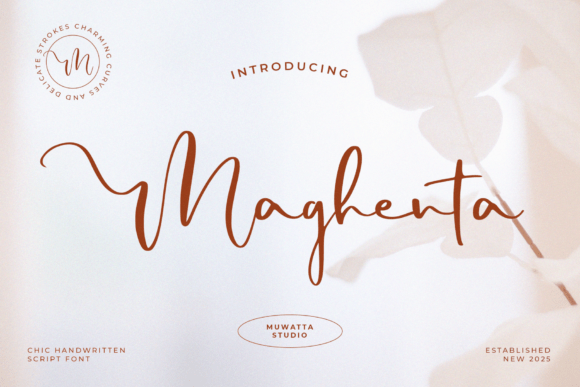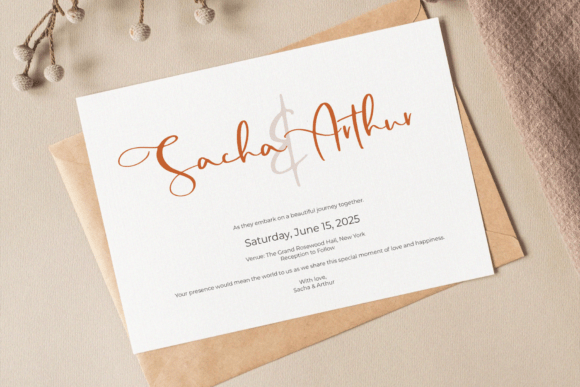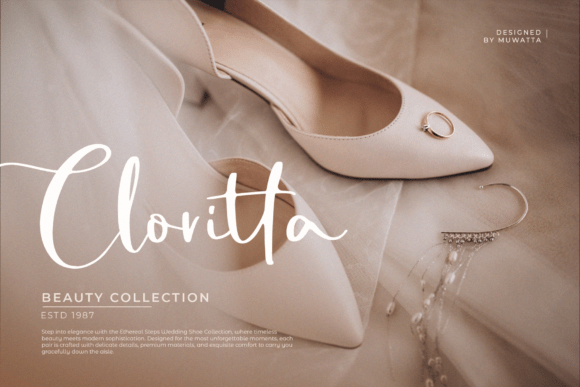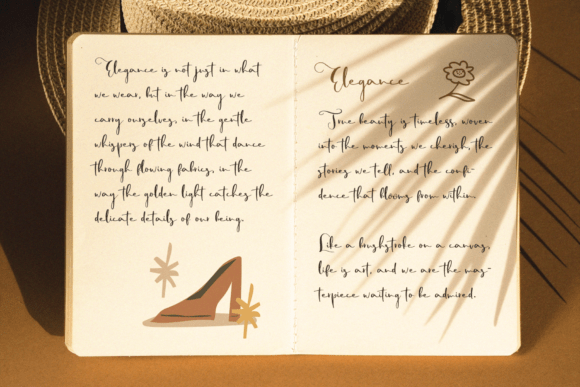
Maghenta Font
About the Maghenta Font
The Maghenta Font offers a perfect balance of form and function for your design needs. Enter a world of whimsy with Maghenta, a whimsical font that captivates with every stroke. Designed with a touch of magic and unique character, Maghenta brings the feel of a fairy tale to life in letterforms—vivid, flowing, and full of personality.
Maghenta’s whimsical character makes it ideal for headlines, short text blocks in branding materials, and playful packaging designs. It adds a touch of fairytale charm to invitations, posters, and children’s book illustrations. However, its decorative nature makes it unsuitable for body text, long paragraphs, or user interface elements where legibility is paramount.
Pairing Maghenta effectively requires a contrasting typeface to balance its ornate style. A clean sans-serif like Open Sans or Lato provides a modern counterpoint, while a classic serif such as Garamond or Georgia offers a more traditional balance. For a more whimsical feel, consider pairing it with a script font, but choose one with simpler forms to avoid visual clutter.
Maghenta’s overall personality is playful and slightly magical, lending itself to brands targeting young audiences or those promoting fantasy, creativity, and imagination. Its decorative style adds a touch of charm and whimsy, but should be used strategically.
Maghenta Font Example